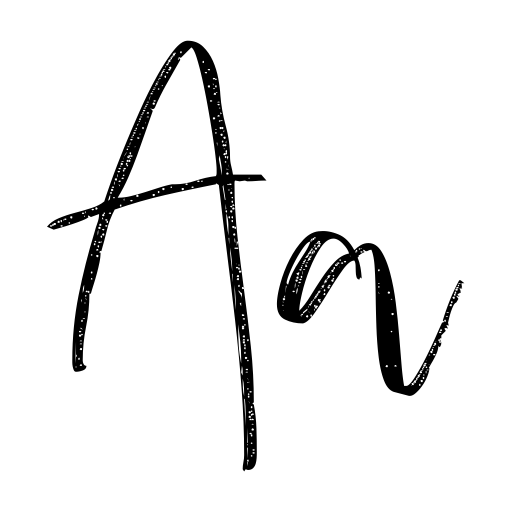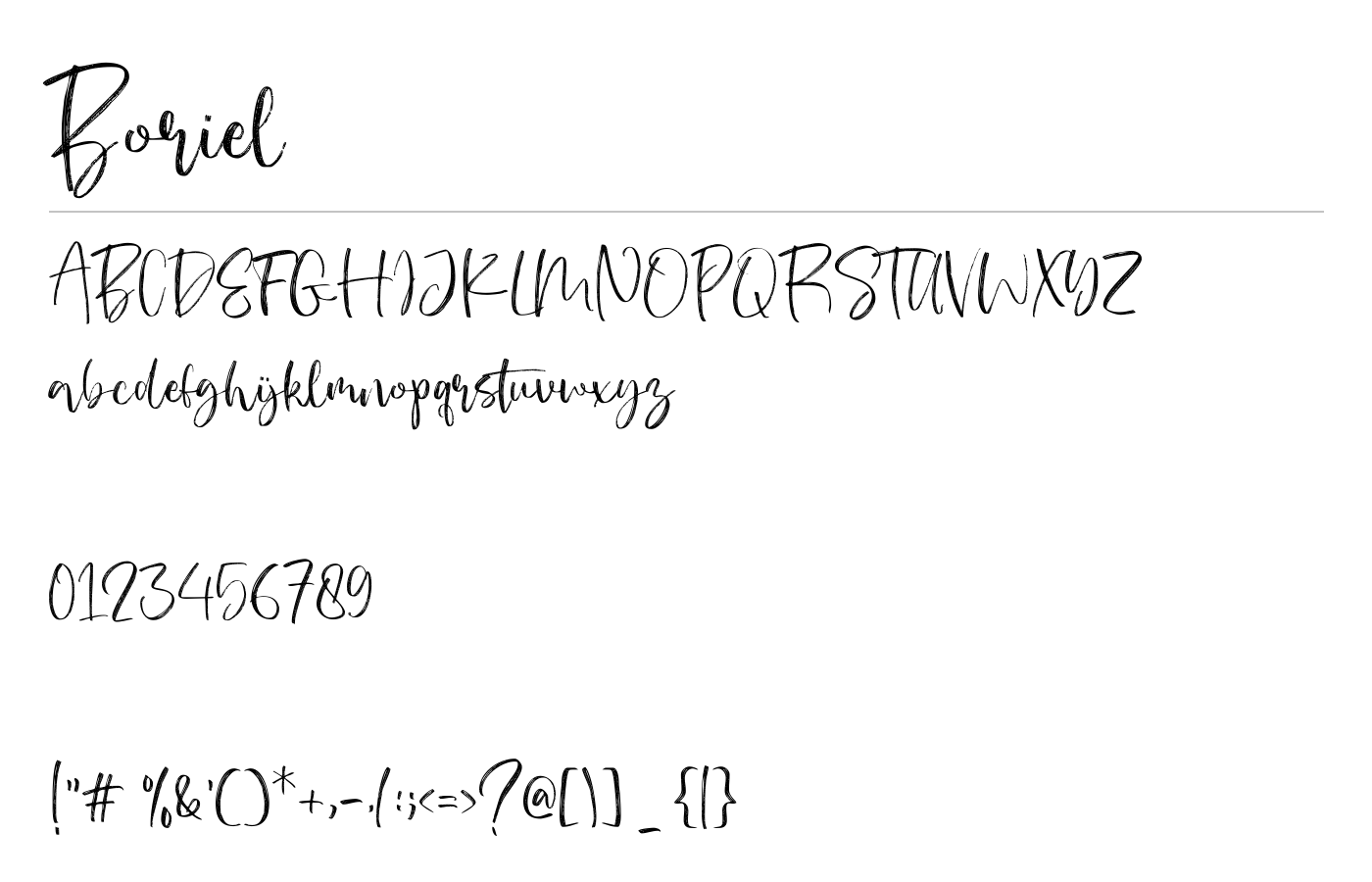
Boriel is a stylish, handwritten script font with a casual yet elegant feel. Its light, uneven strokes and playful, flowing letterforms give it a personal, artistic touch, making it perfect for creative projects, invitations, and branding that seeks a warm, approachable vibe. This font works well in headlines or decorative text where a unique, hand-crafted look is desired.
Boriel Font
About Boriel Font